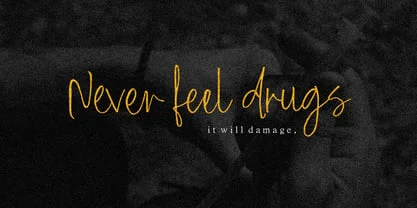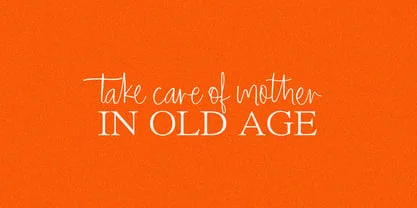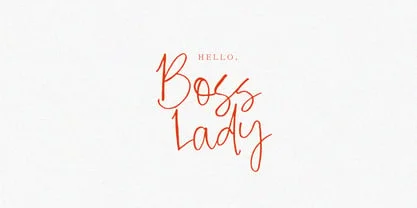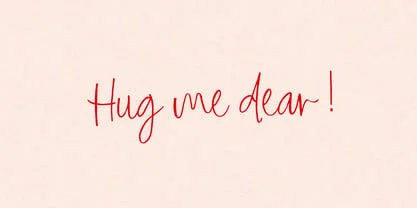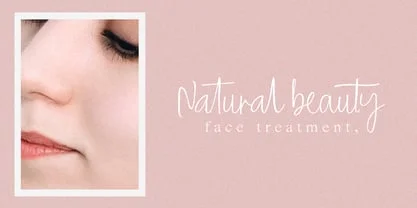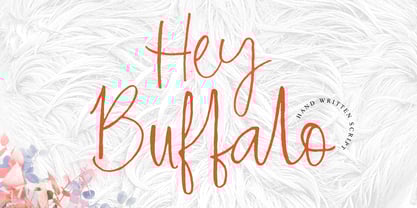
Hey Buffalo Font
A good typeface communicates tone before a single word is read. Hey Buffalo achieves this through distinctive character without sacrificing readability. The typeface brings an elegant, calligraphic sensibility to a broad range of creative disciplines, with strong typographic hierarchy support that holds up whether the work is print-first or screen-first.
In practice, Hey Buffalo proves particularly effective for advertising campaigns, beauty packaging, social media graphics, brand identity systems, editorial layouts. Designers reaching for it find that the type decisions feel resolved rather than laboured — a useful quality when client timelines are tight.
The range of applications extends to bridal materials, environmental graphics, luxury stationery, feminine branding. That breadth is deliberate: the proportions and spacing were stress-tested across a wide range of mock briefs before the typeface was finalised.
At smaller sizes the design retains its character without becoming cluttered. This resilience across scales makes Hey Buffalo equally suitable for a business card and a billboard — a useful property when assets must scale across a campaign.
In-house creative teams at consumer brands find Hey Buffalo a reliable choice for projects that demand both personality and restraint. The design avoids the self-conscious quirkiness that dates quickly, settling instead for considered distinctiveness that holds up over time.